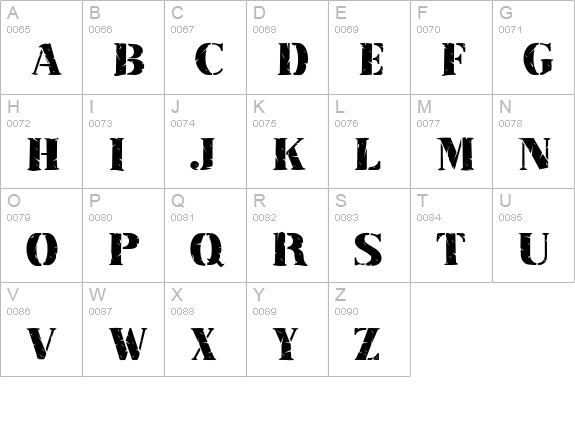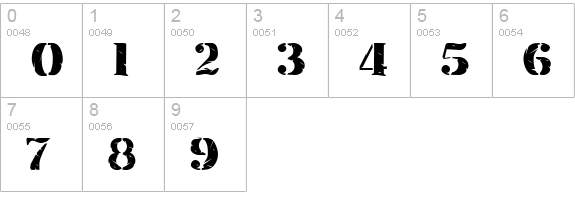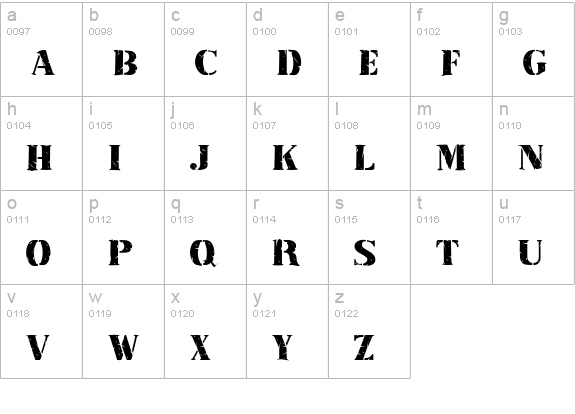
Stamp Regular is the standard, neutral variant in the Stamp typeface family \xE2\x80\x94 well suited to general body text, paragraphs, and standard typographic work.
Stamp Regular is a versatile and eye-catching font that is perfect for adding a touch of uniqueness to your designs. This font features a distinct stamp-like appearance, with bold and slightly rough edges that give it an authentic and handcrafted feel. It is ideal for creating eye-catching headlines, posters, logos, and branding materials. One of the best things about Stamp Regular is that it is completely free to download. You can easily obtain this font from FontsMarket.com, a trusted source for high-quality fonts. Whether you are a professional designer or a creative enthusiast, you can freely explore the endless possibilities that Stamp Regular offers. With its bold and attention-grabbing style, Stamp Regular is sure to make a lasting impression on your audience. The unique texture and character of this font add depth and personality to any design. From vintage-inspired projects to modern and contemporary designs, Stamp Regular can be easily incorporated to add that extra touch of visual interest. Whether you are looking to create a retro poster, a vintage-inspired logo, or simply add a touch of personality to your social media graphics, Stamp Regular is the perfect font for the job. Its versatility and distinctive aesthetic make it a go-to choice for designers of all levels. Don't miss out on the opportunity to enhance your design projects with Stamp Regular. Download this font for free at FontsMarket.com and unleash your creativity. Get ready to captivate your audience with the charm and uniqueness of Stamp Regular!